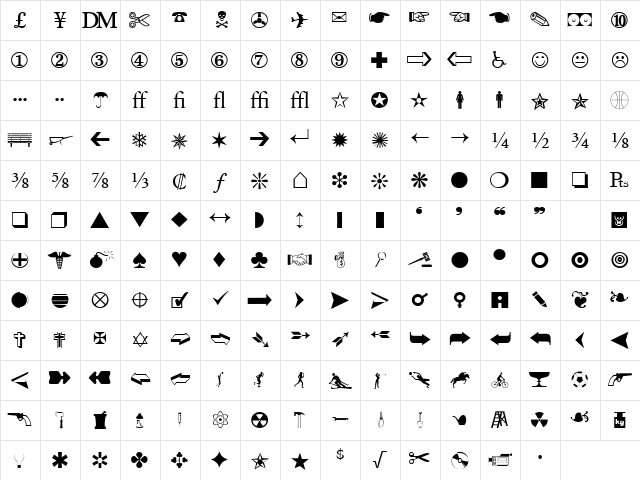
Business1 Normal Font Preview
Business1 Normal
Business1 Normal Font Details
Design Context for Business1 Typeface
Business1 takes a measured approach to typography — its balanced proportions and neutral character make it a reliable workhorse for both digital and print work.